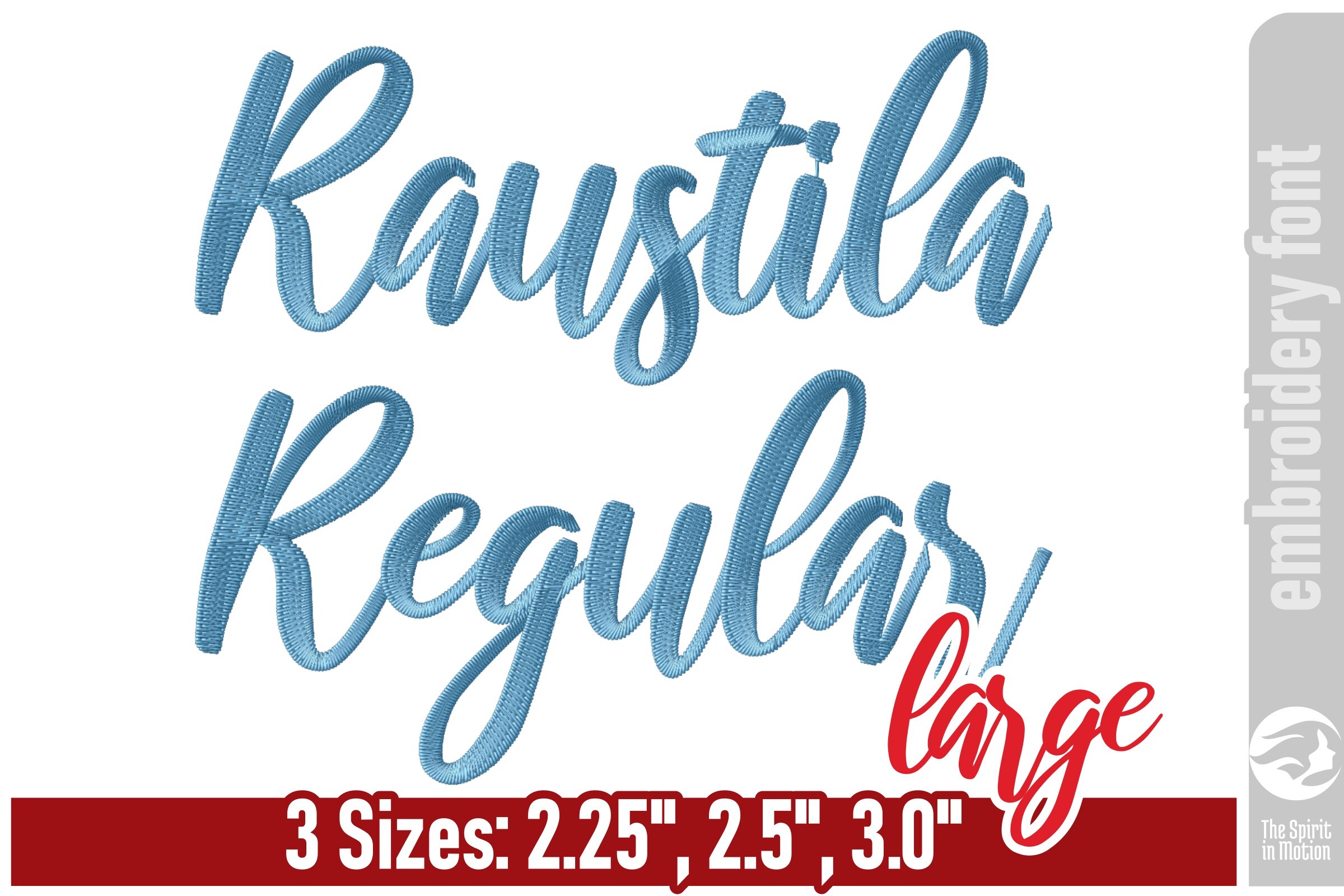
Raustila Embroidery Font - Large
Bring an elegant and modern calligraphy style to your embroidery projects with this cursive script font. Its flowing brush strokes, smooth connections, and natural hand-lettered rhythm stitch beautifully on garments, accessories, and personalized gifts. This stylish cursive design is perfect for names, logos, wedding items, boutique branding, and decorative accents. Carefully digitized details ensure clean, consistent stitching on a wide range of fabrics. The sizes and stitches information shown below is for “A” in each size. This is provided as a summary of what is available in this download file. For the full dimension details of all letters in this set, click on the More Sewing Info (PDF) button on this page.